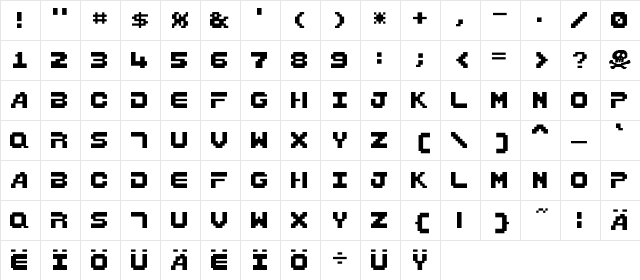
Bordersprite Regular
| Designer | ck! [freakyfonts] |
Design Context for Bordersprite Typeface
Bordersprite is a composed and adaptable typeface that performs quietly and consistently across a wide range of design contexts.